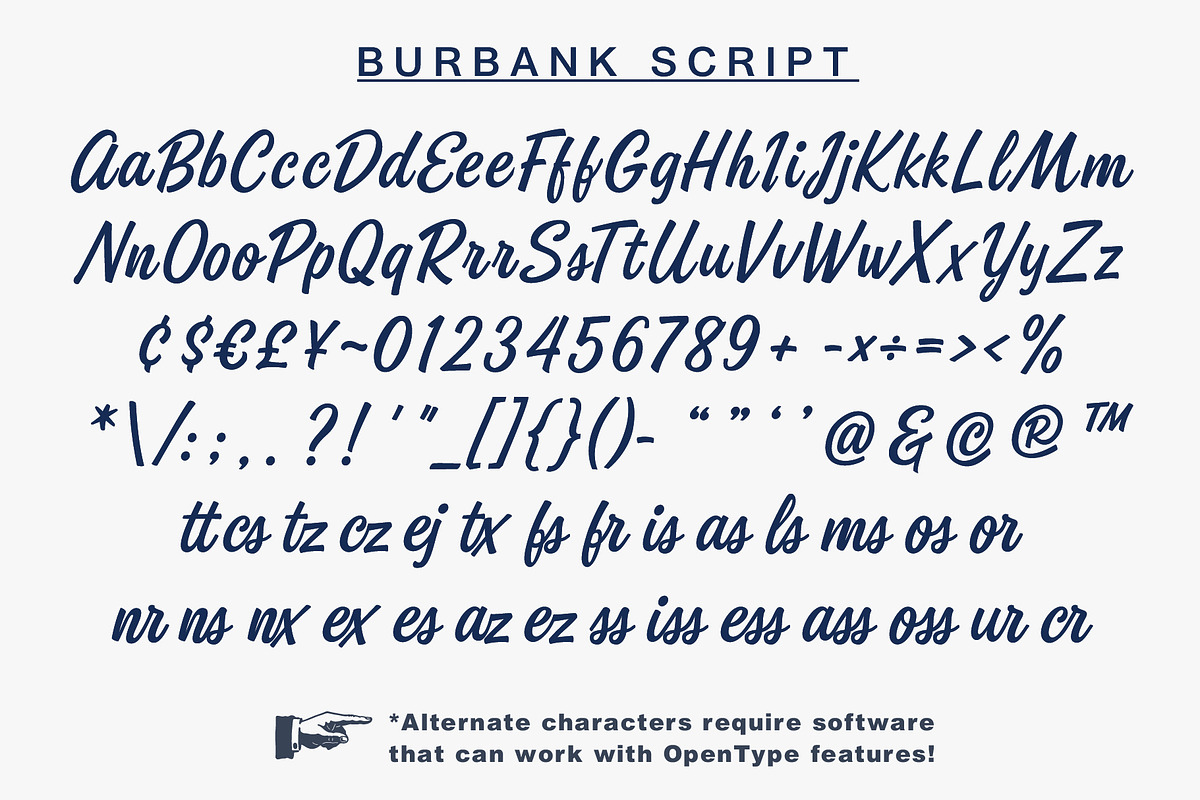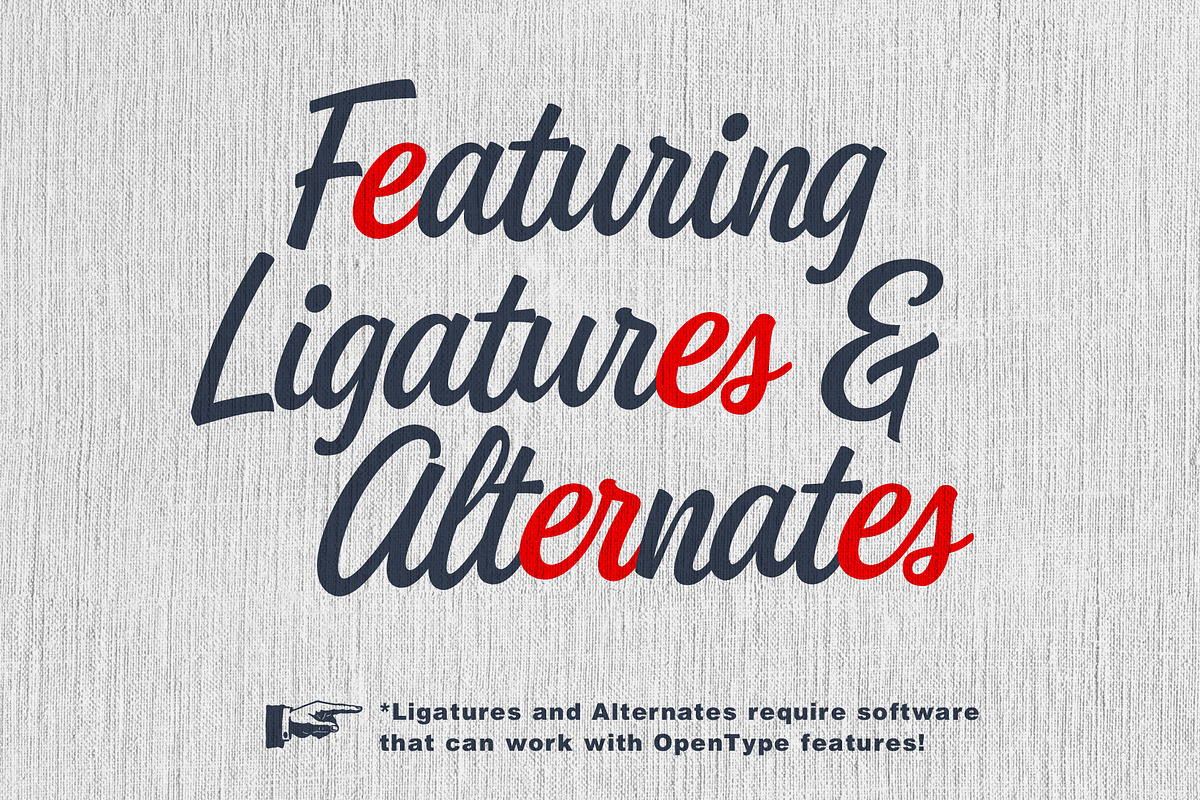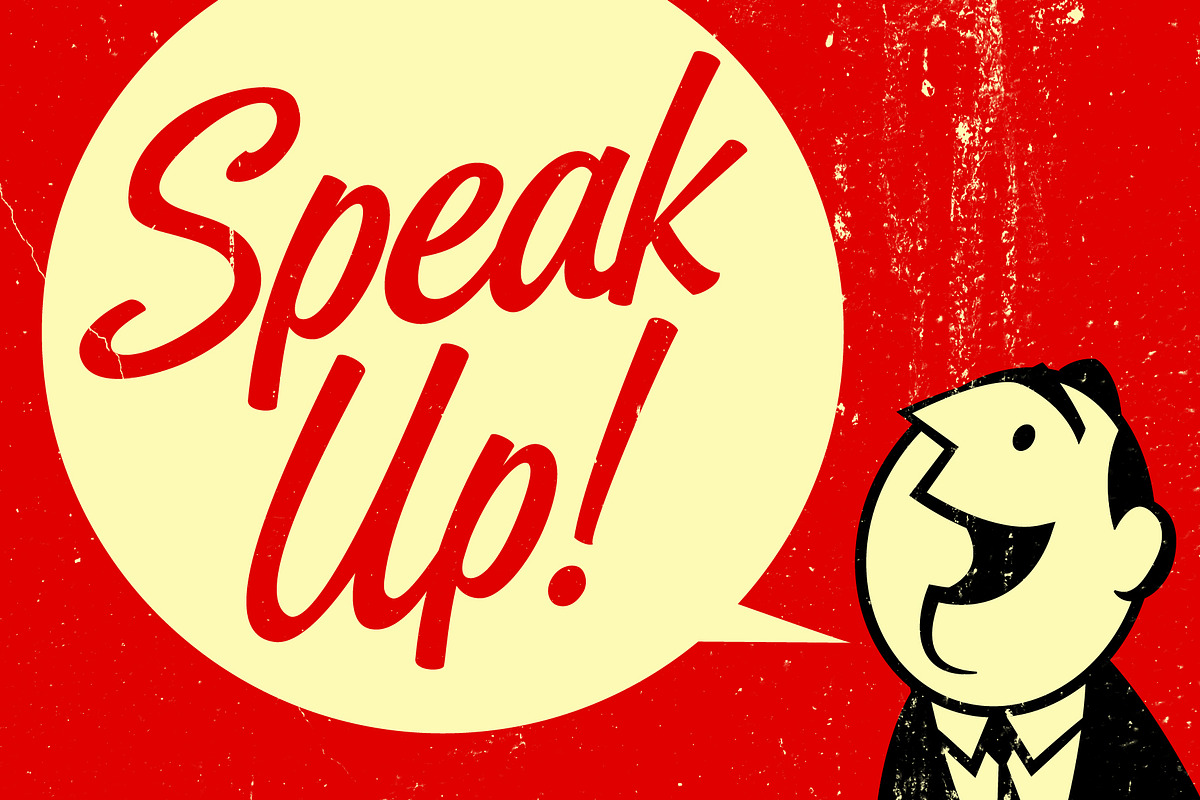
Inspired by the hand-cut lino scripts of mid-century advertising, Burbank commands attention with its playful display of connective letterforms.
The slightly elevated baselines of the lowercase letters emphasize the powerful energy of the capitals to persuade and inform. Utilize Burbank’s suave authority to influence ad copy in endorsements, logos, headlines and posters. Expand your design options with Burbank’s stylistic alternatives and contextual ligatures (made possible by Open Type features).
- Alternate characters and ligatures